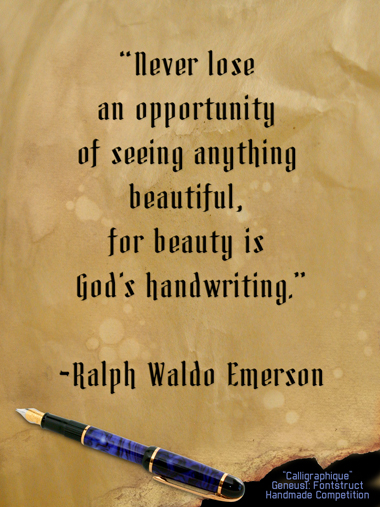
Calligraphique
geneus1
“Never lose an opportunity of seeing anything beautiful, for beauty is God's handwriting.” ~Ralph Waldo Emerson
beatiful at any size
Love it gene.
It's...
As usual, you break my heart with a beautiful masterpiece. Thanks, master.
Love X, Z, and the tilting ascender of d! Exquisite calligraphic style; I might try to do something like this in the near future...hmmm...
great as usual. Love the Gwx
Lovely. The stress on the "d" is thoughtful. This truly (and amazingly) looks handcrafted.
cool!
Awesome work! Beautiful